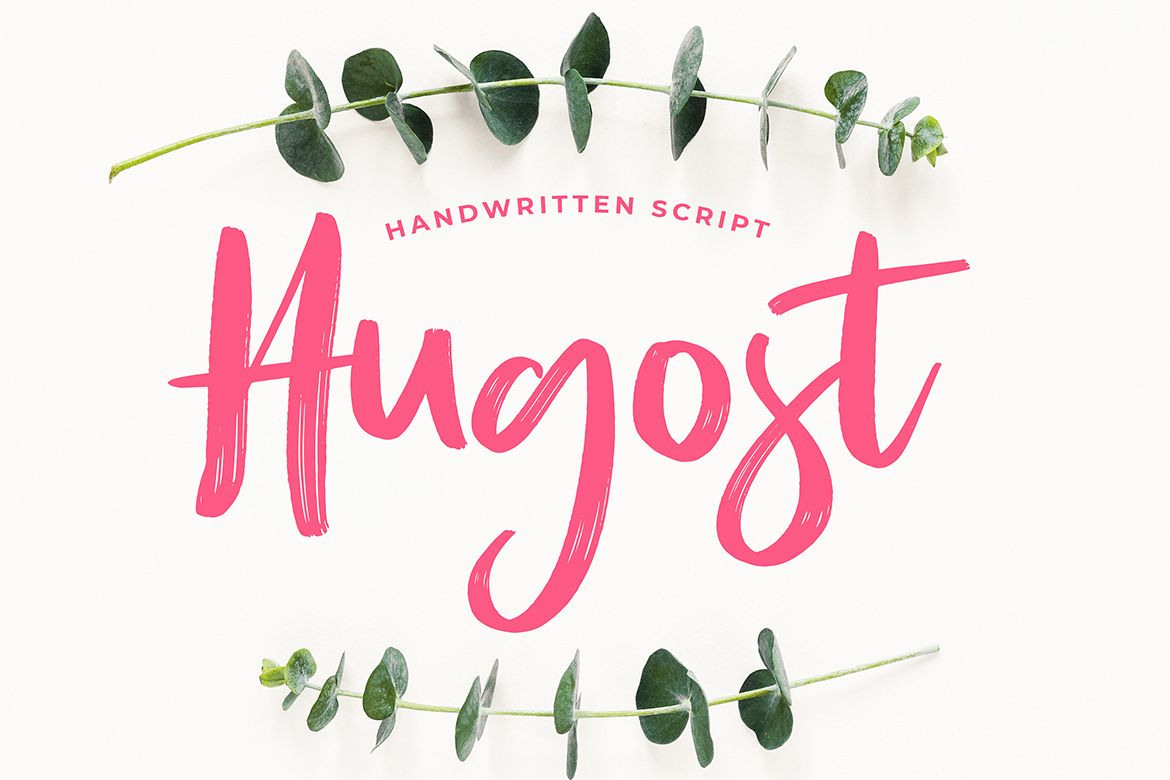
Hugost Handwritten Brush Font
Hugost
Hugost Handwritten Brush Font is handwritten font with brush style. This font perfect for branding projects, logo, tshirt designs, social media posts, advertisements, product packaging, product designs, label, watermark, invitation, stationery and any projectsWhat's Included :
Hugost Handwritten Brush Font